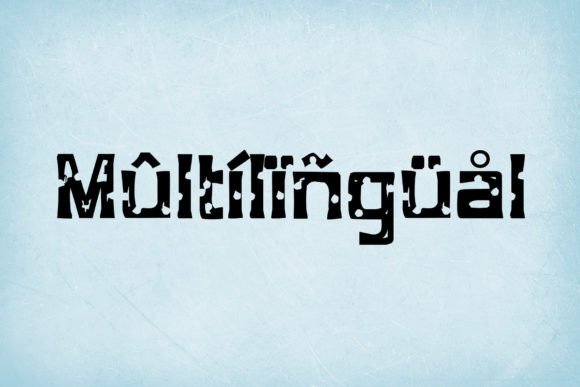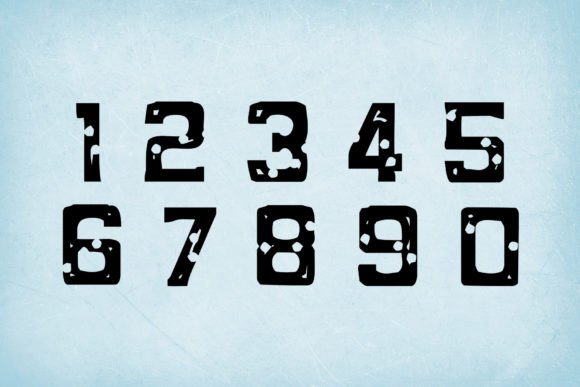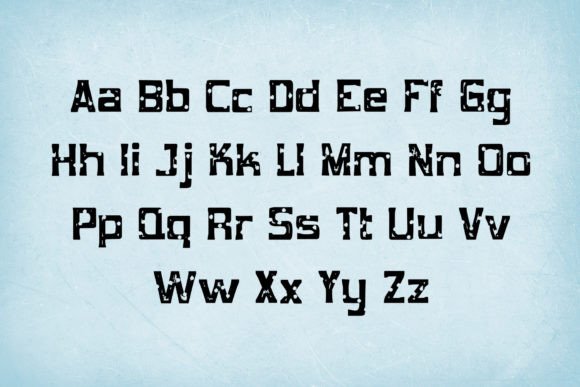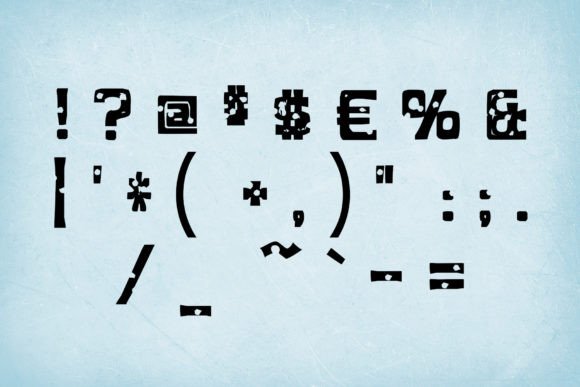
Unleash Your Creativity with Concrete Jungle Font
Are you tired of using the same old fonts in your designs? Look no further than the Concrete Jungle Font, a cool and unique display font that’s sure to brighten up any project. With its whimsical and quirky style, this font is perfect for designers and crafters looking to add a touch of personality to their work.
What is Concrete Jungle Font?
Concrete Jungle Font is a display font that’s designed to make a statement. Its unique and quirky style sets it apart from more traditional fonts, making it perfect for projects that need a bit of flair. Whether you’re working on a logo, a poster, or a social media graphic, this font is sure to turn heads.
Key Features of Concrete Jungle Font
- Unique and Quirky Style: Concrete Jungle Font has a one-of-a-kind style that’s sure to make your designs stand out.
- Whimsical and Playful: This font has a fun and playful vibe that’s perfect for projects that need a bit of personality.
- Display Font: Concrete Jungle Font is designed specifically for display purposes, making it perfect for headlines, titles, and other prominent text.
- Easy to Read: Despite its unique style, Concrete Jungle Font is still easy to read, making it perfect for a wide range of projects.
How to Use Concrete Jungle Font
Concrete Jungle Font is versatile and can be used in a variety of projects, including:
- Logos and Branding: Add a touch of personality to your logo or branding with this unique font.
- Posters and Flyers: Make your posters and flyers stand out with Concrete Jungle Font.
- Social Media Graphics: Add some flair to your social media graphics with this fun and playful font.
- Invitations and Party Decor: Use Concrete Jungle Font to create unique and eye-catching invitations and party decor.
Tips for Pairing Concrete Jungle Font with Other Fonts
When pairing Concrete Jungle Font with other fonts, it’s essential to choose fonts that complement its unique style. Here are a few tips:
- Pair with a Serif Font: Pair Concrete Jungle Font with a serif font, such as Arial or Times New Roman, to create a nice contrast.
- Use a Simple Font: Balance out the quirky style of Concrete Jungle Font with a simple font, such as Helvetica or Calibri.
- Experiment with Font Sizes: Play around with different font sizes to create visual interest and hierarchy.
Concrete Jungle Font is a unique and quirky display font that’s perfect for designers and crafters looking to add a touch of personality to their work. With its whimsical and playful style, this font is sure to brighten up any project. Whether you’re working on a logo, poster, or social media graphic, Concrete Jungle Font is a great choice. So why not give it a try and see the difference it can make in your designs?